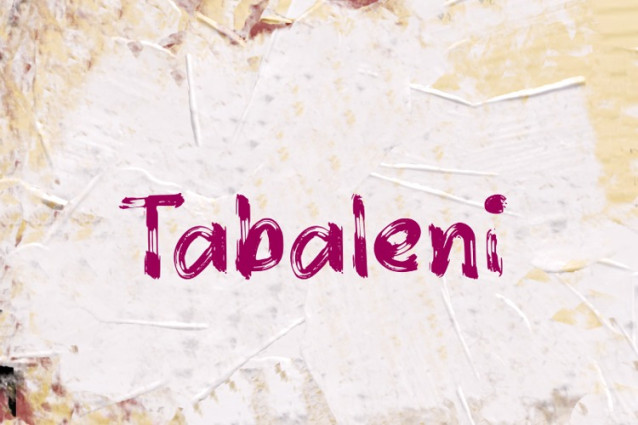
Tabaleni Font
Tabaleni Font, inspired by brush lettering-style typography. This font is perfect for a design that makes it more attractive and playful. It was made with a very good level of aesthetics, making this font suitable for a book cover, poster, packaging, merchandise, logotype, and much more.